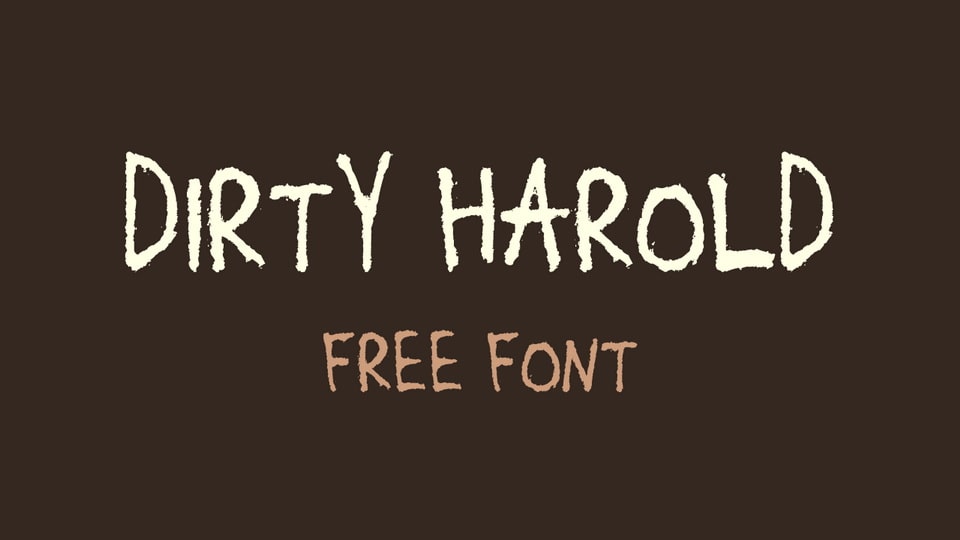
Feb 2, 2025Script & HandwrittenDirty Harold Font Dirty Harold is a grungy hand lettered font with messy brush imperfections. Perfect to give an authentic and realistic paintbrush look for posters, prints, crafts and creative lettering. Font DetailsDesigned by: GGBotWebsiteLicense: Free for commercial use, OFL Download Dirty Harold FontFile size: 137.84 KBCreated: February 16, 2025Updated: February 16, 2025 Download Explore similar fonts Moment Fruitful Font Vakantcy Font Lolita Brush Font Sound Seekers Font Relsika Font Machinay Font # Brush# Hand-drawn# Handwriting# Rough More fonts by GGBotCairopixel FontPixelbasel FontOperation Napalm FontScabber FontJuliett FontRyga FontSkyte FontVaticanus Font